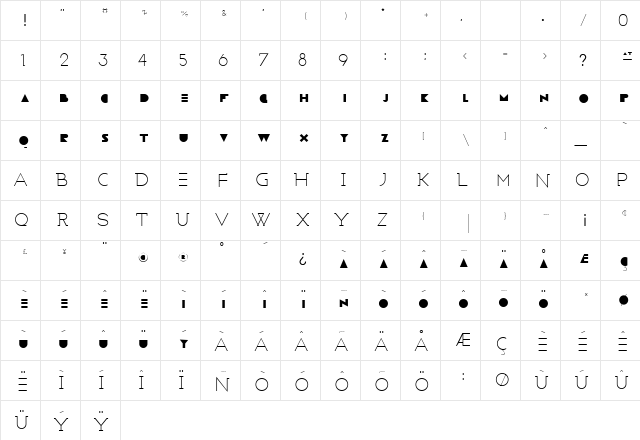
Wicked Thin
| Designer | emile byeongsu kim |
Design Context for Wicked Typeface
Wicked takes a measured approach to typography — its balanced proportions and neutral character make it a reliable workhorse for both digital and print work. The delicate stroke weight brings airiness and refinement to layouts.